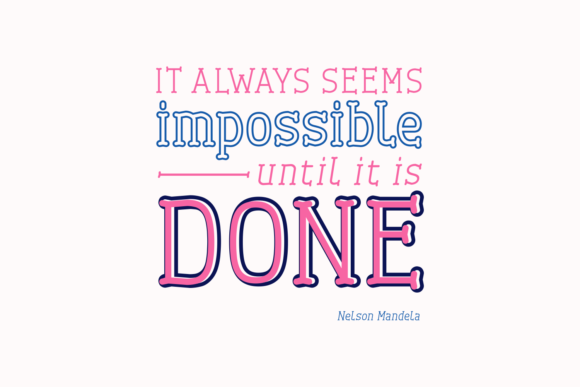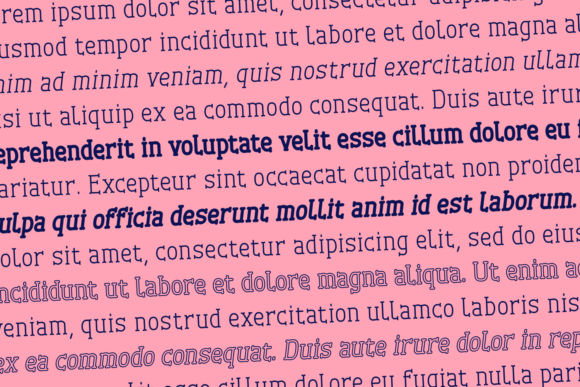
Introducing Cherrytha Font: The Playful Display Font for Creative Designs
Are you looking for a font that can add a touch of playfulness and whimsy to your designs? Look no further than Cherrytha Font! This beautiful display font is perfect for creating outstanding decorative designs that are sure to capture attention. With its cartoon-inspired look, Cherrytha Font is ideal for designers and crafters who want to add a dash of fun and personality to their work.
What is Cherrytha Font?
Cherrytha Font is a display font that boasts a unique and eye-catching design. Its cartoon-inspired look is reminiscent of childhood nostalgia, making it perfect for designs that require a playful and youthful touch. The font is designed to be highly legible, even at large sizes, making it ideal for use in titles, headings, and other display text.
Key Features of Cherrytha Font
- Cartoon-inspired design: Cherrytha Font features a playful and whimsical design that’s perfect for creating fun and engaging designs.
- Highly legible: The font is designed to be easy to read, even at large sizes, making it perfect for use in titles and headings.
- Versatile: Cherrytha Font can be used for a wide range of design projects, from digital graphics to print materials.
- Easily customizable: The font can be easily customized to fit your design needs, making it perfect for creating unique and personalized designs.
Uses for Cherrytha Font
Cherrytha Font is a versatile font that can be used for a wide range of design projects. Here are some ideas to get you started:
- Digital graphics: Use Cherrytha Font to create eye-catching digital graphics, such as social media posts, blog headers, and website titles.
- Print materials: The font is perfect for use in print materials, such as flyers, brochures, and posters.
- Crafting projects: Cherrytha Font is ideal for use in crafting projects, such as handmade cards, scrapbooking, and DIY gifts.
- Branding and packaging: Use the font to create unique and memorable branding and packaging designs.
Tips for Using Cherrytha Font
Here are some tips for getting the most out of Cherrytha Font:
- Use it sparingly: Cherrytha Font is a display font, so it’s best to use it sparingly to create emphasis and add visual interest to your designs.
- Experiment with colors: The font looks great in a wide range of colors, so don’t be afraid to experiment and find the perfect color scheme for your design.
- Pair it with other fonts: Cherrytha Font pairs well with a wide range of fonts, so feel free to experiment with different font combinations to create unique and interesting designs.
Cherrytha Font is a beautiful display font that’s perfect for designers and crafters who want to add a touch of playfulness and whimsy to their designs. With its cartoon-inspired look and highly legible design, it’s ideal for use in a wide range of design projects. Whether you’re creating digital graphics, print materials, or crafting projects, Cherrytha Font is sure to inspire your creativity and help you create outstanding decorative designs.